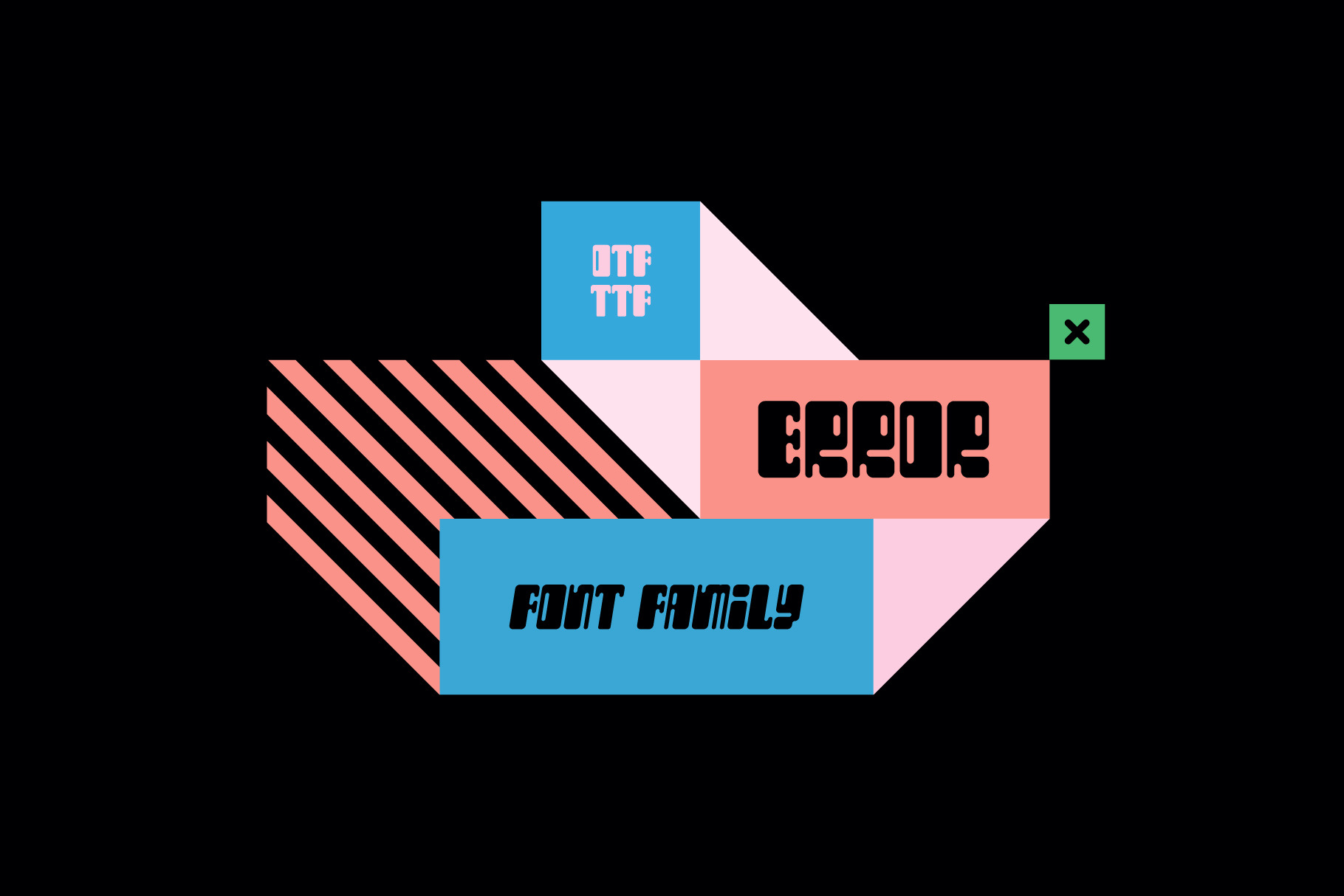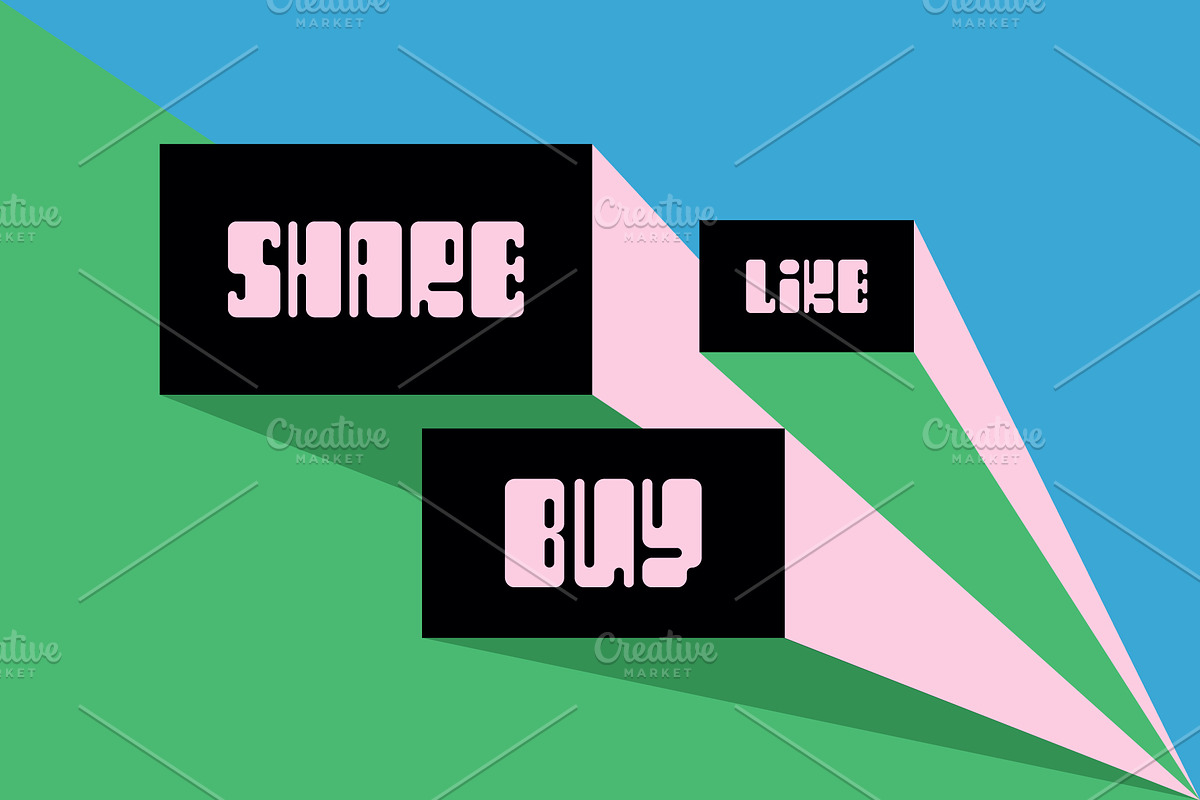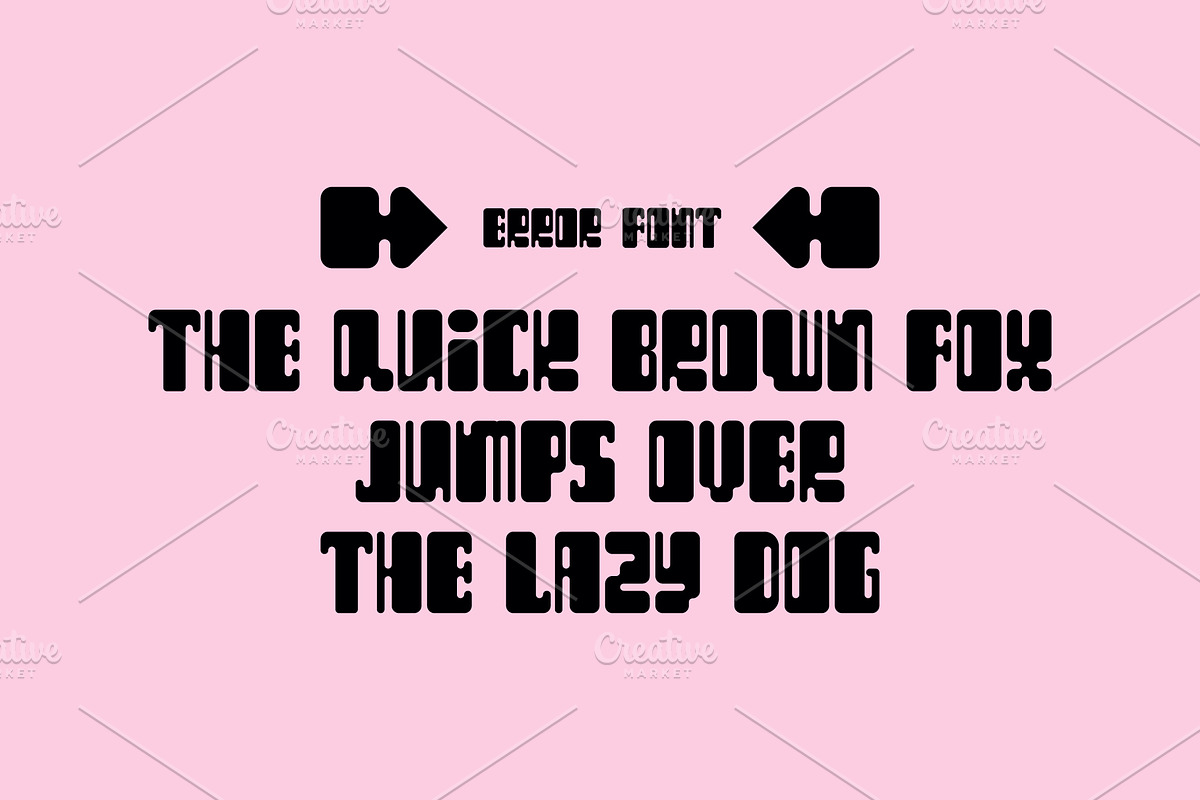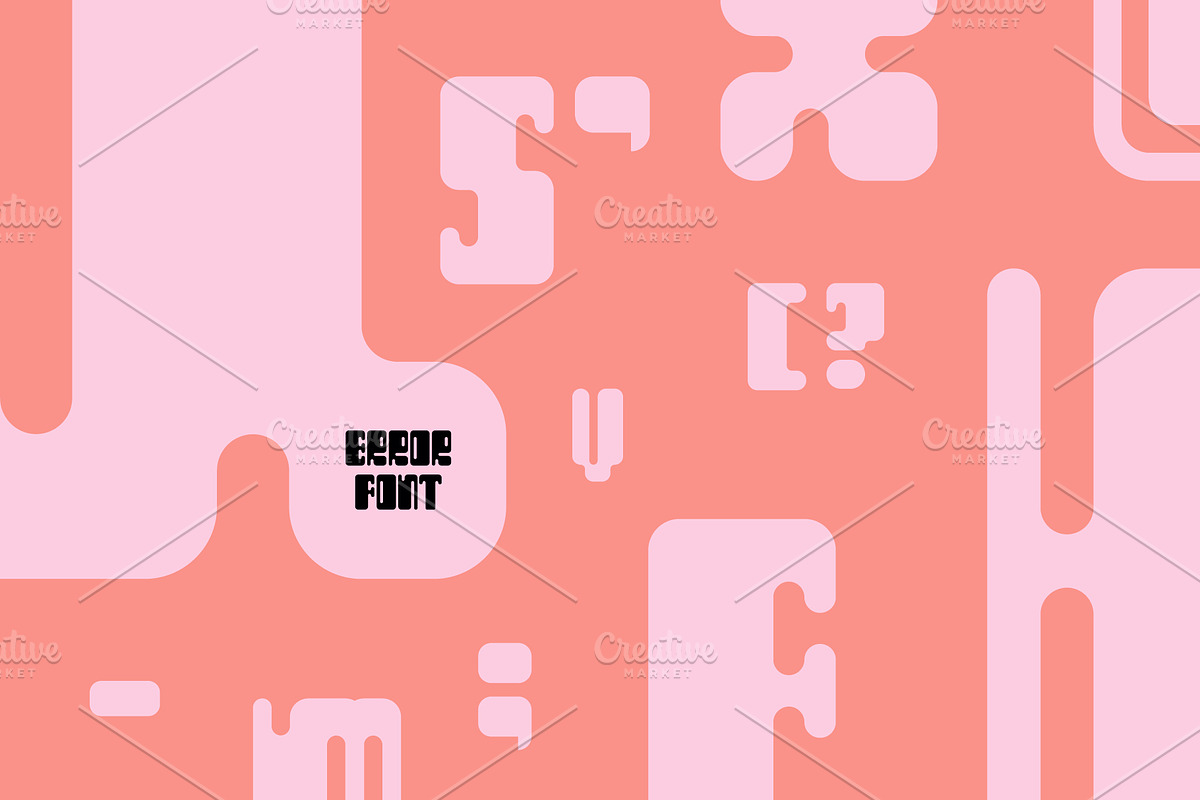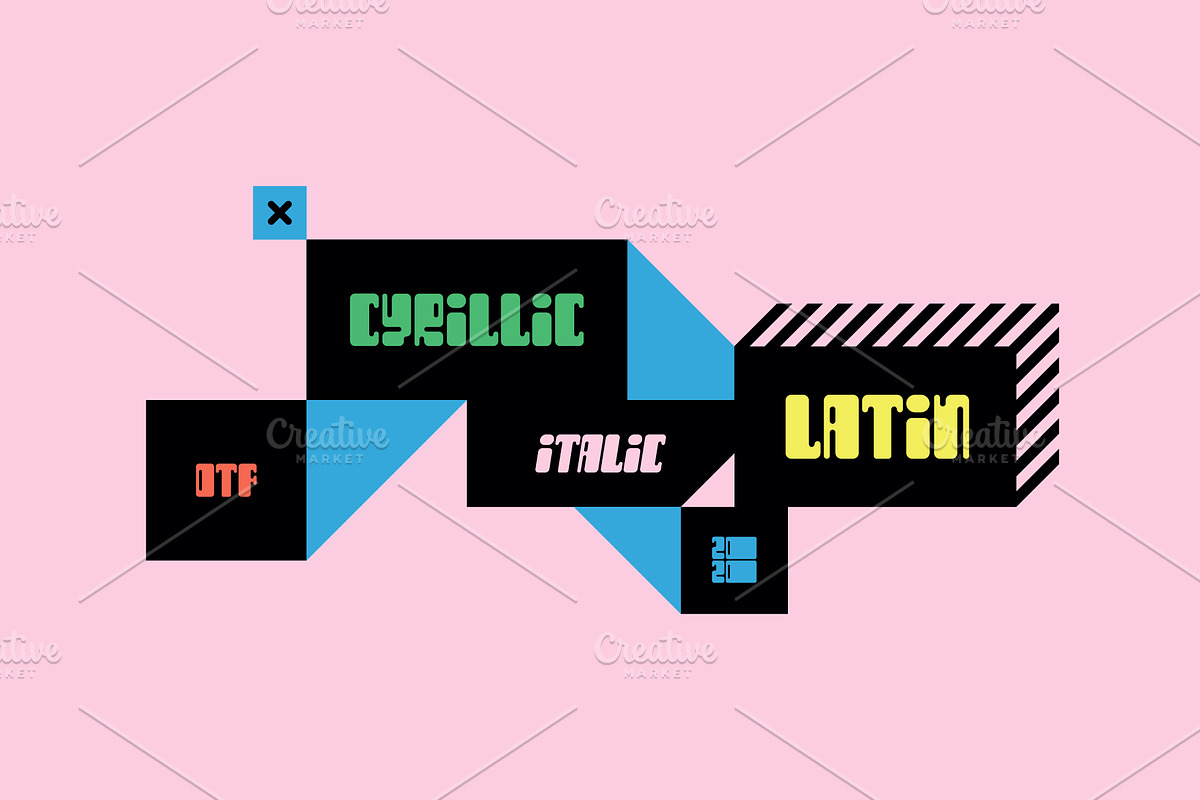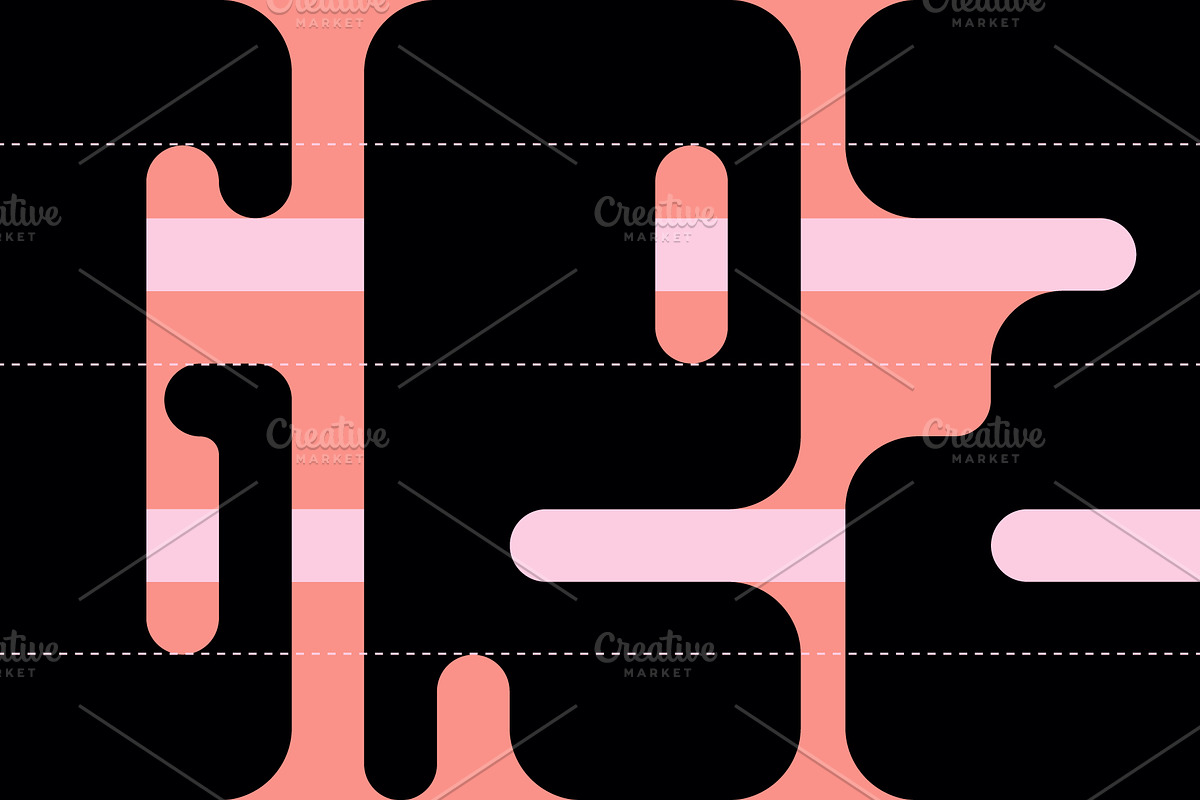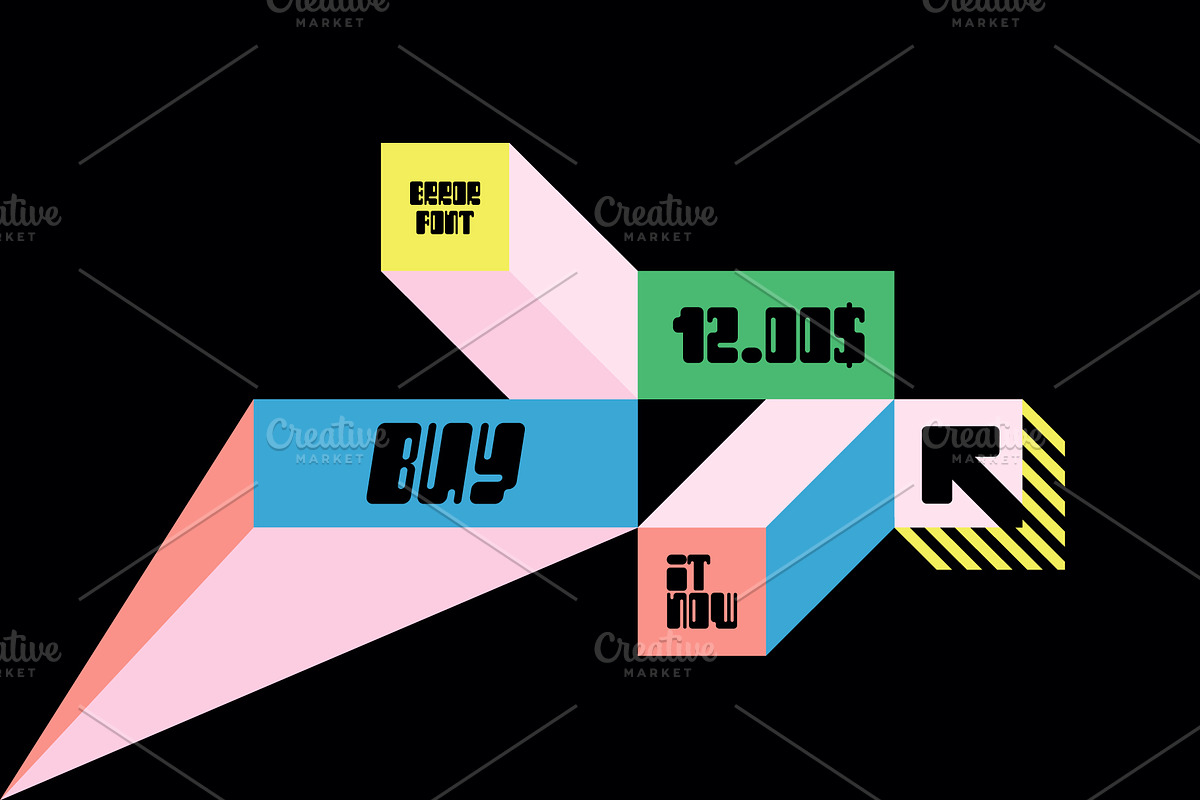
ERROR Font
Hi everyone! This is my new font Error. I really like him, so simple, bold and unusual. The font is suitable for creating wordmarks, titles, taglines. It is in 2 versions : Latin and Cyrillic + Italic